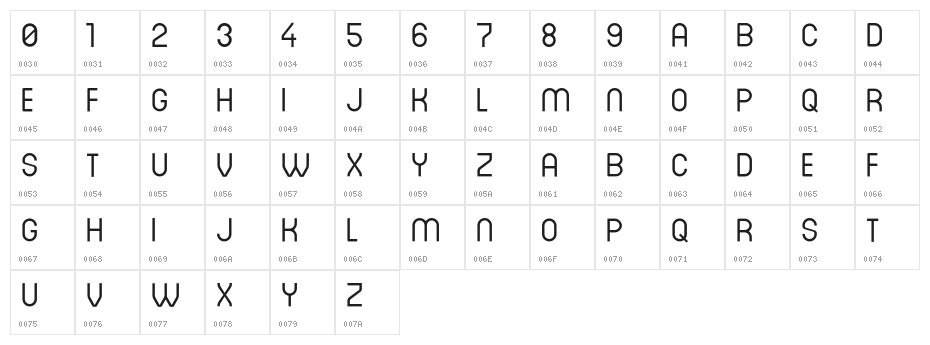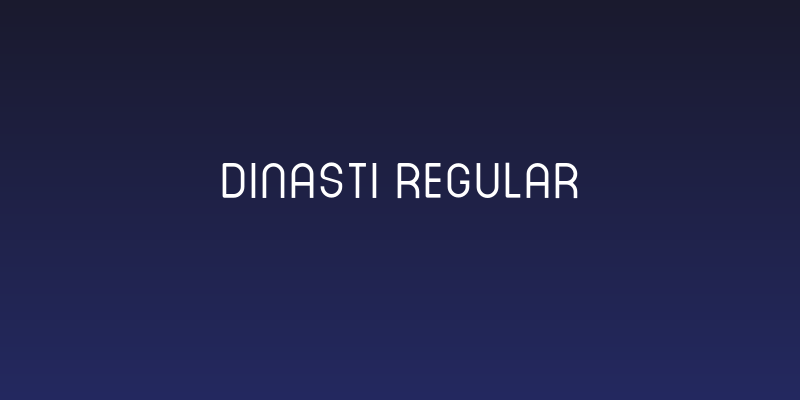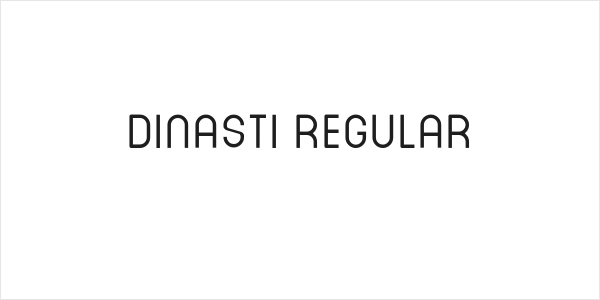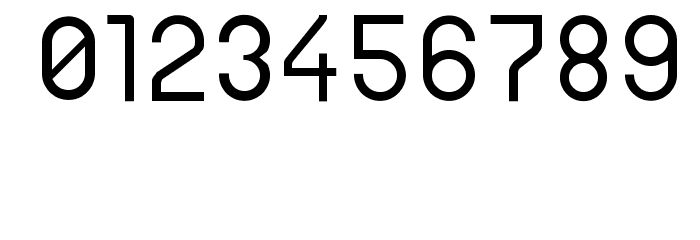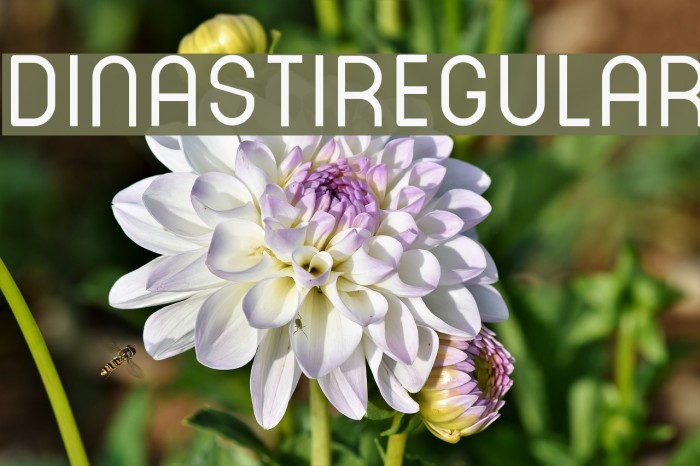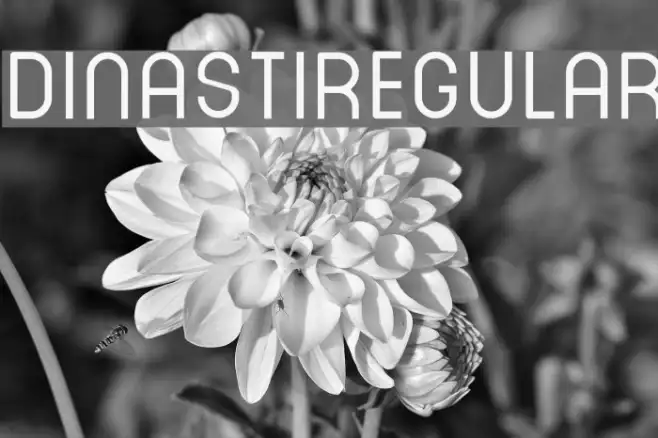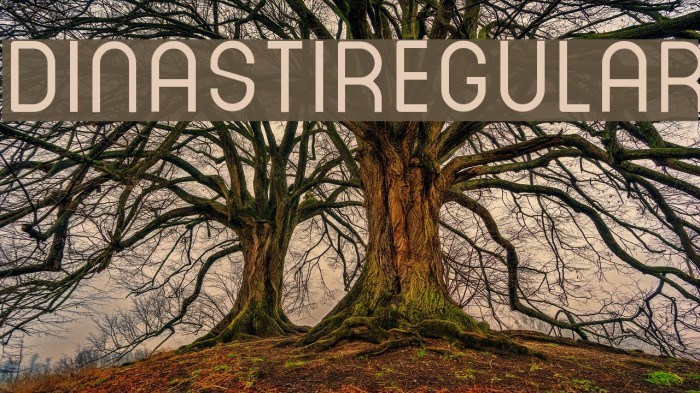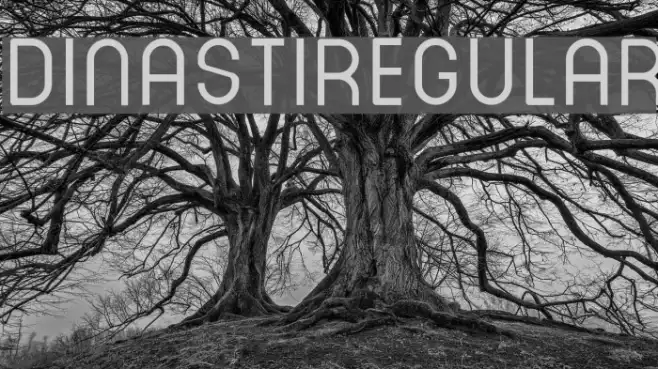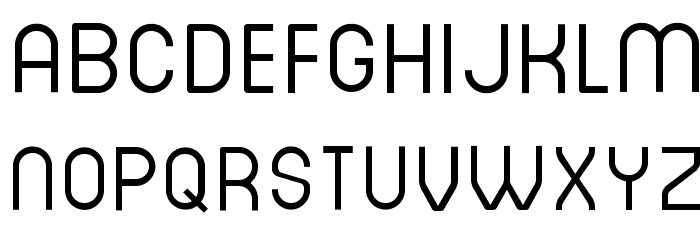
DINASTI-Regular Font
DINASTI-Regular Description
This font features a clean, geometric design with a modern aesthetic. The characters are constructed with consistent stroke widths, giving it a uniform appearance. The uppercase and lowercase letters maintain a similar height, contributing to its minimalist style. The numerals are clear and legible, matching the overall design. The font's simplicity and clarity make it suitable for various applications, emphasizing readability and a contemporary look.
| Proposed Projects | Ideal for branding, signage, digital interfaces, and editorial design where clarity and modernity are essential. |